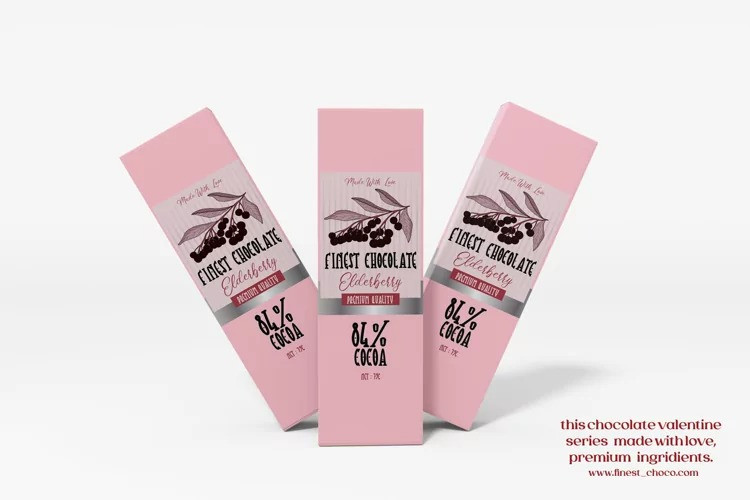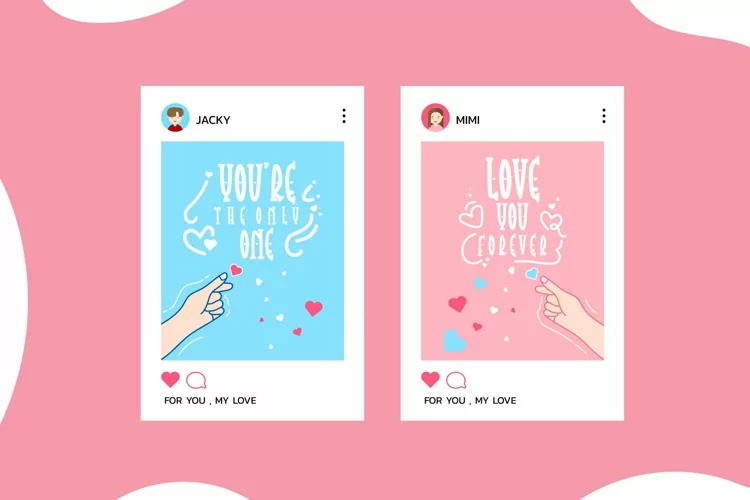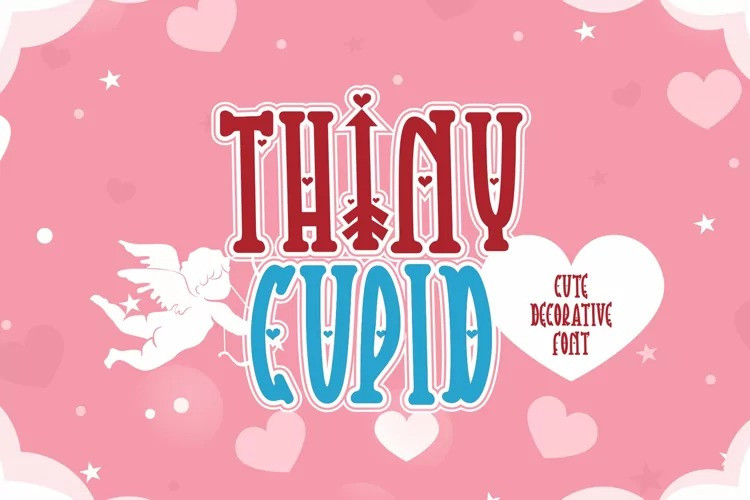
Thiny Cupid Font
Thiny Cupid Display Font is a lovely display font that radiates charm. It features gorgeous hearts in each letter which give it an incredibly romantic feel. this font suitable for valentine day poster, logo, t shirt, event banner and etc. you can use this font for any design, apparel, kids logo, logo type, with many swash for make your design awesome.